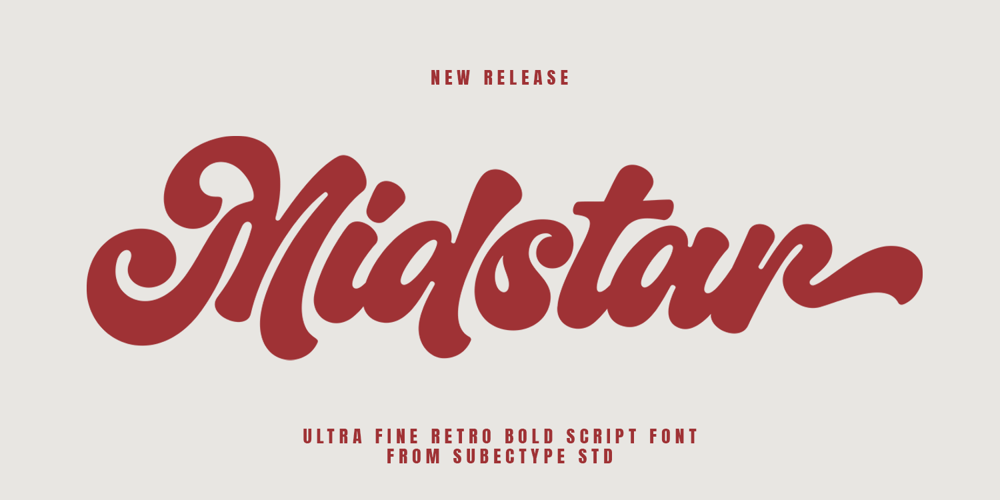
Midstar Font Family was designed by Rangga Subekti and published by Subectype. Midstar contains 1 styles and family package options. Midstar is a Vintage retro font. Inspired from retro typography and lettering in the 70’s and 80’s combine with bold typography style. This font perfect for vintage and retro design, badge, logos,t-shirt, poster, branding, packaging, signage, book coverand so much more!Thankyou Subectype Studio